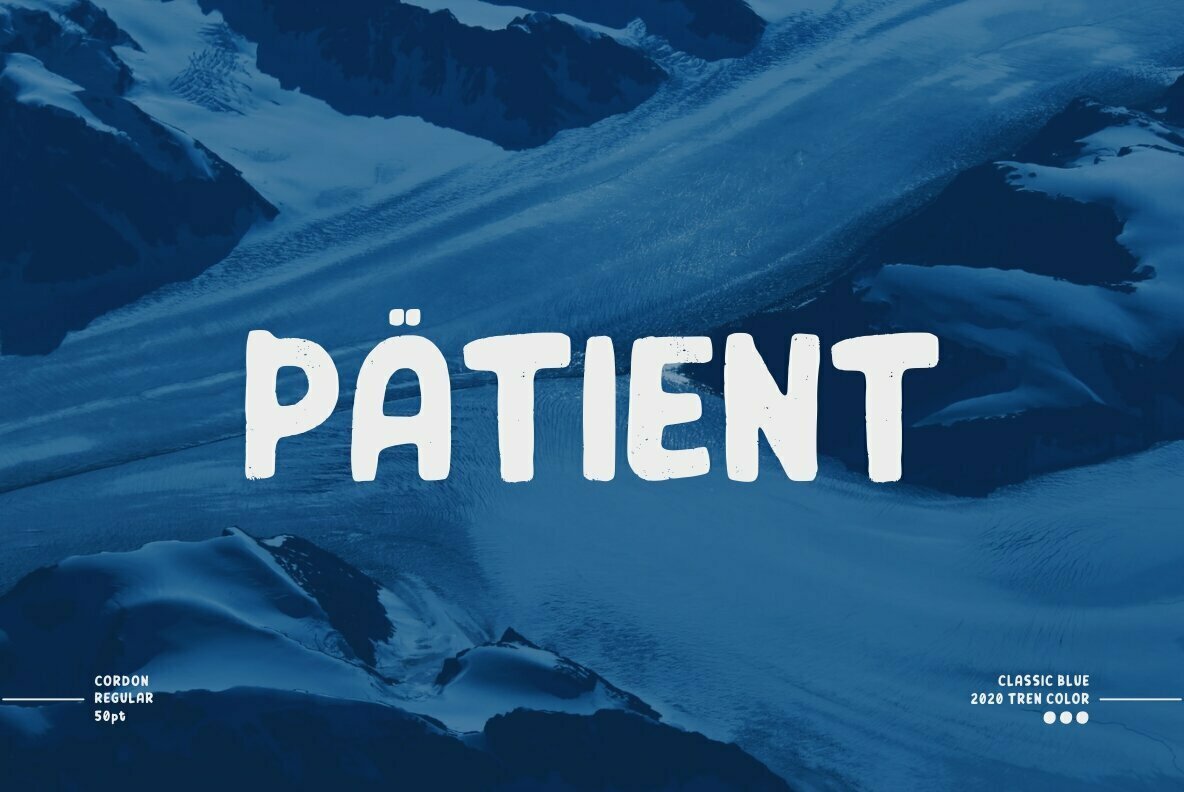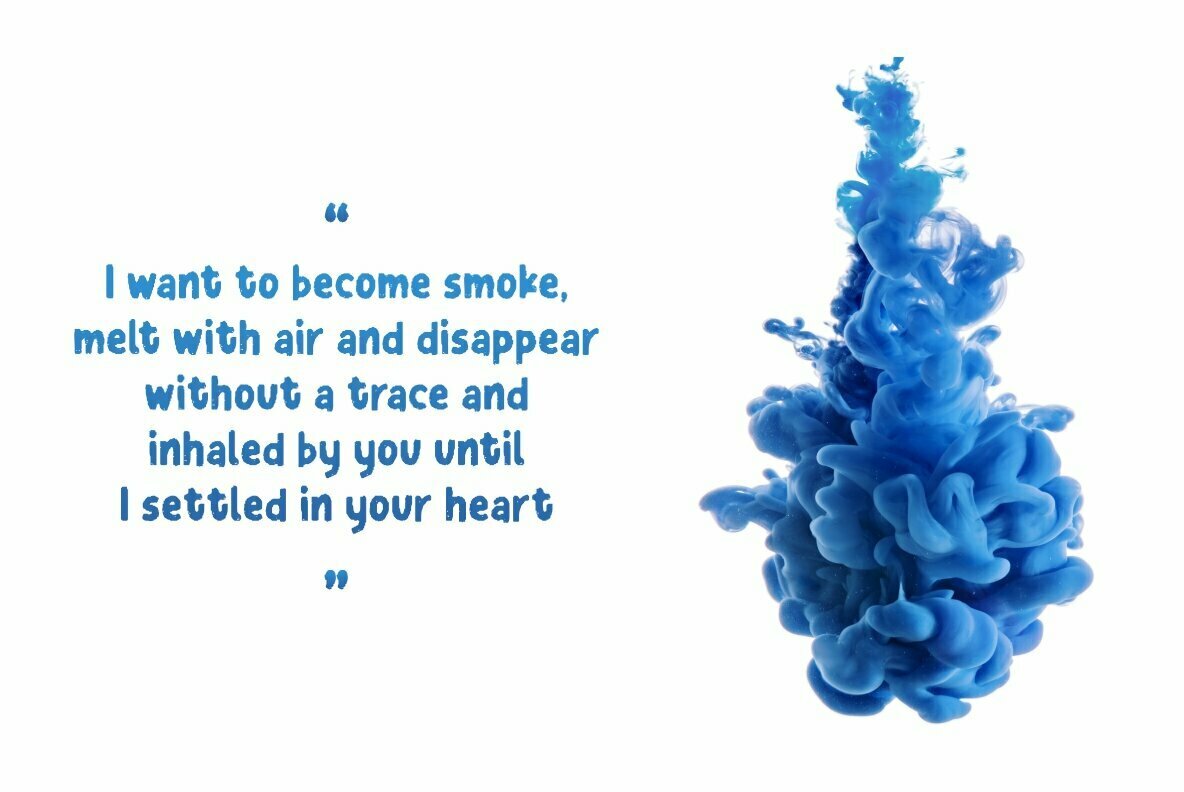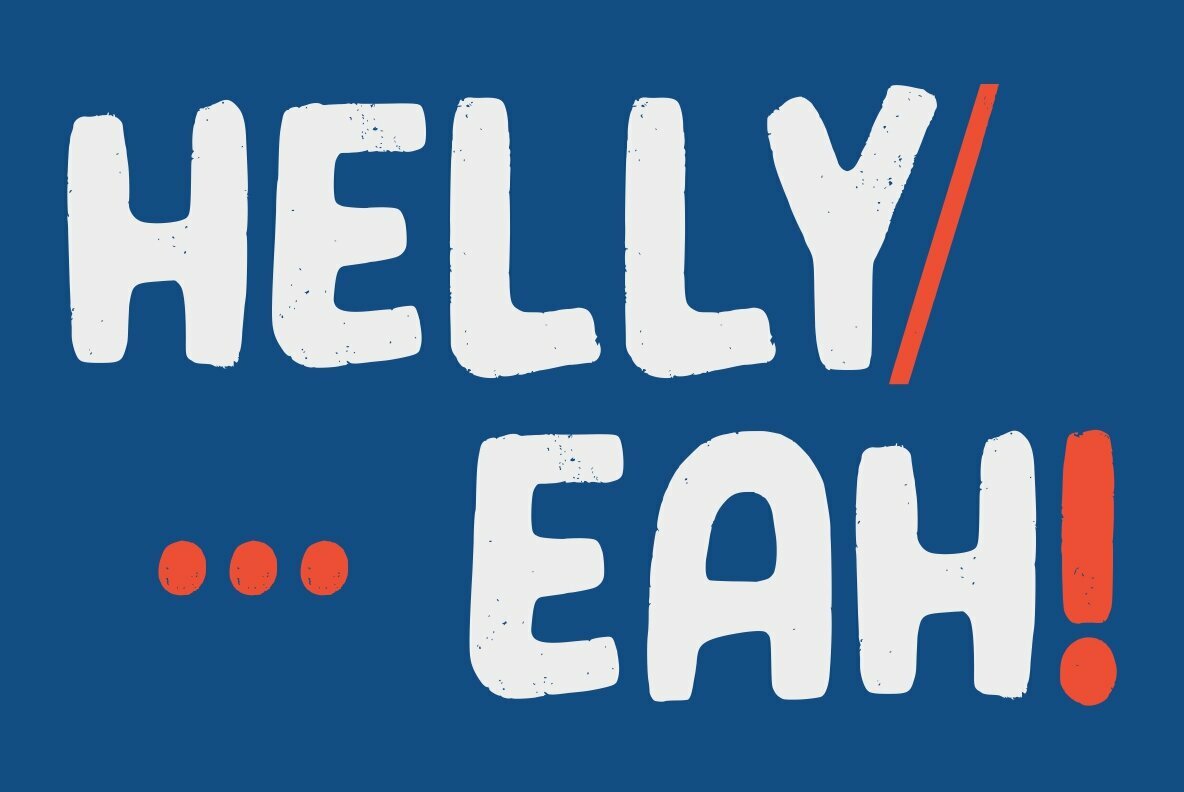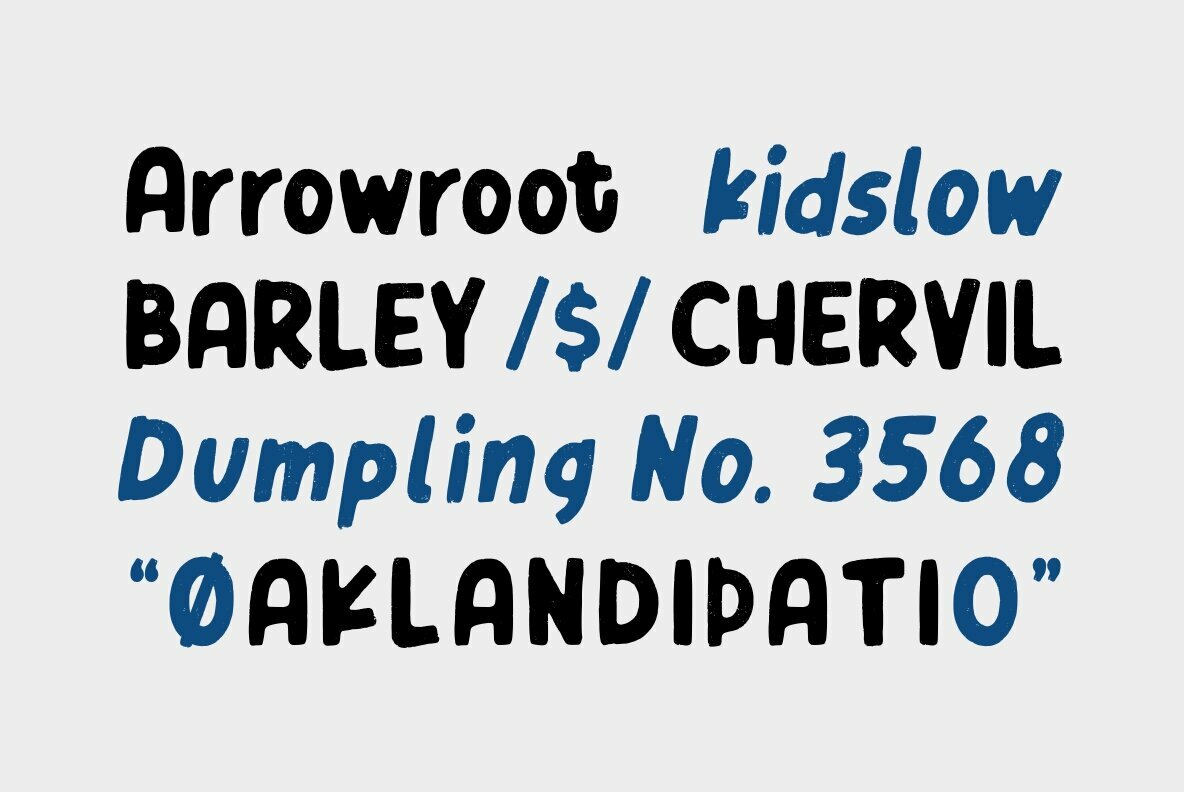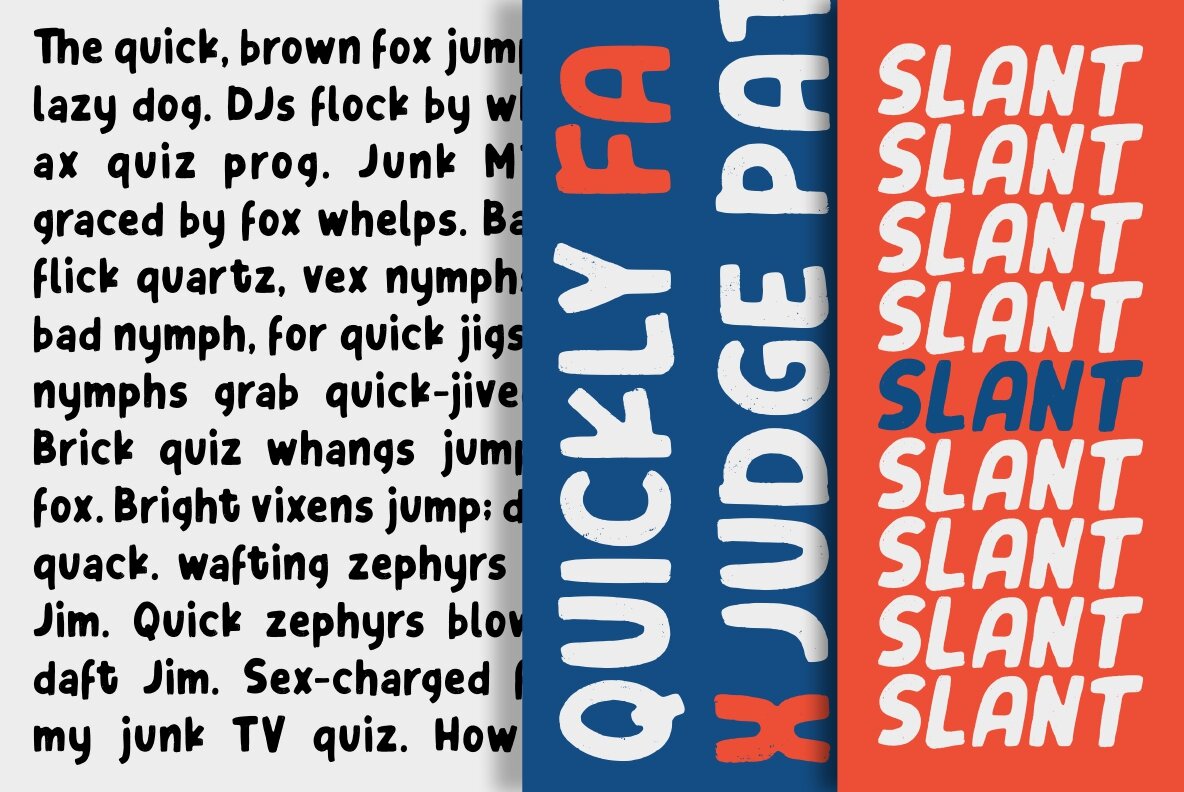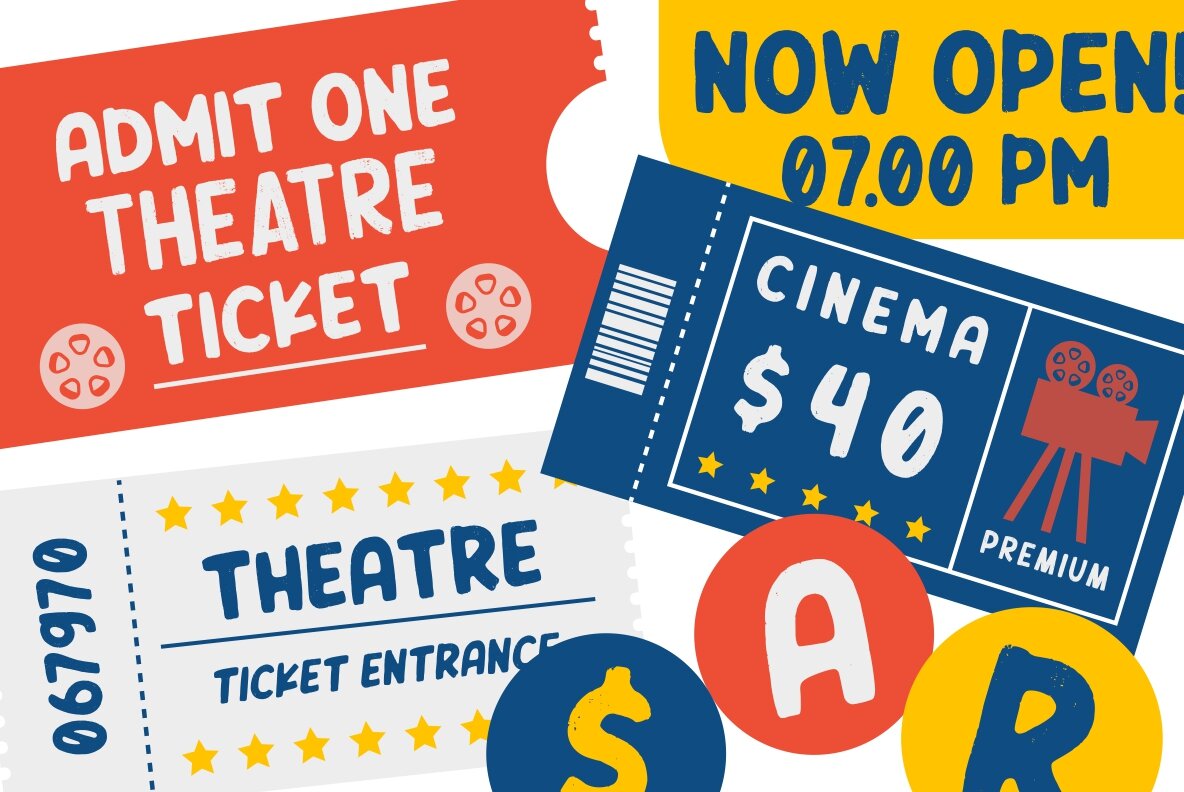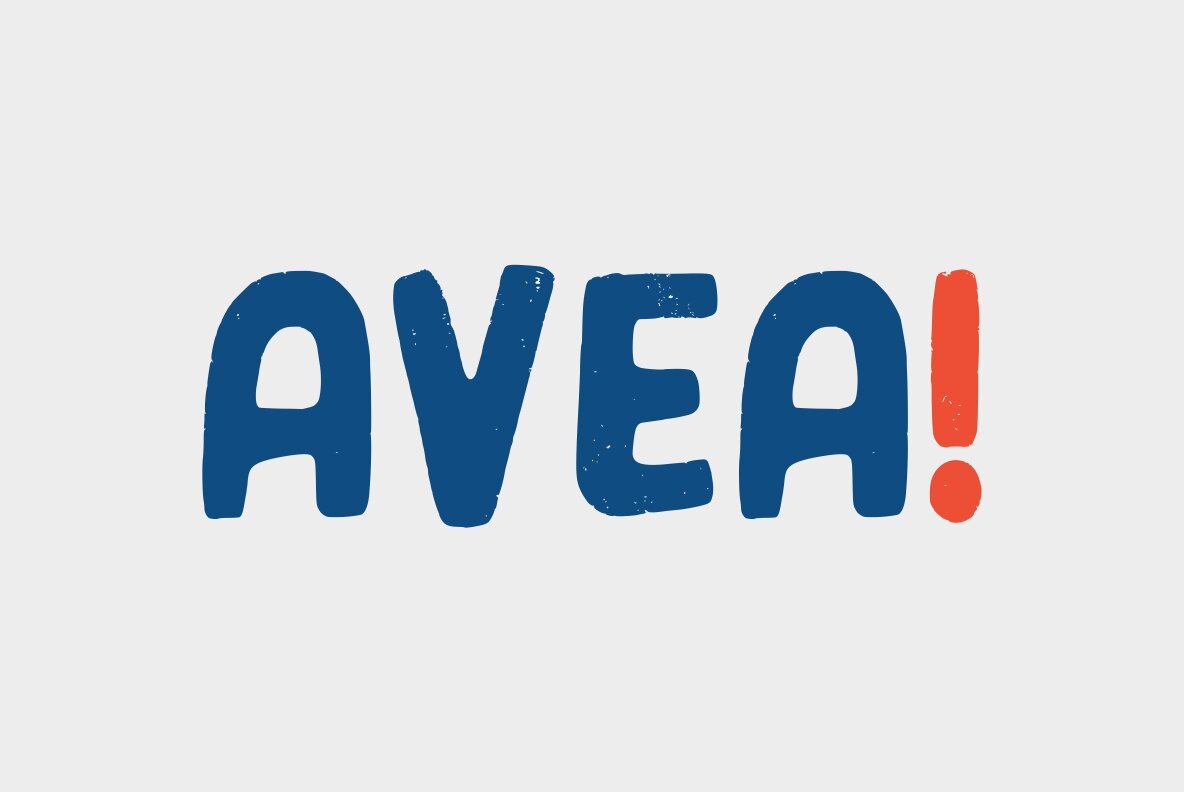
Cordon Font
Cordon brings the charm of hand-drawn design into modern typography. Its vintage and classic aesthetic offers a handmade look that resonates with nostalgia and authenticity. This font is ideal for those seeking to infuse projects with a touch of retro flair. Whether crafting branding materials, designing t-shirts, or creating logos, Cordon provides a versatile choice that complements a variety of graphic design endeavors including posters, business cards, and photography overlays.Cordon: Textured Font with Vintage Appeal